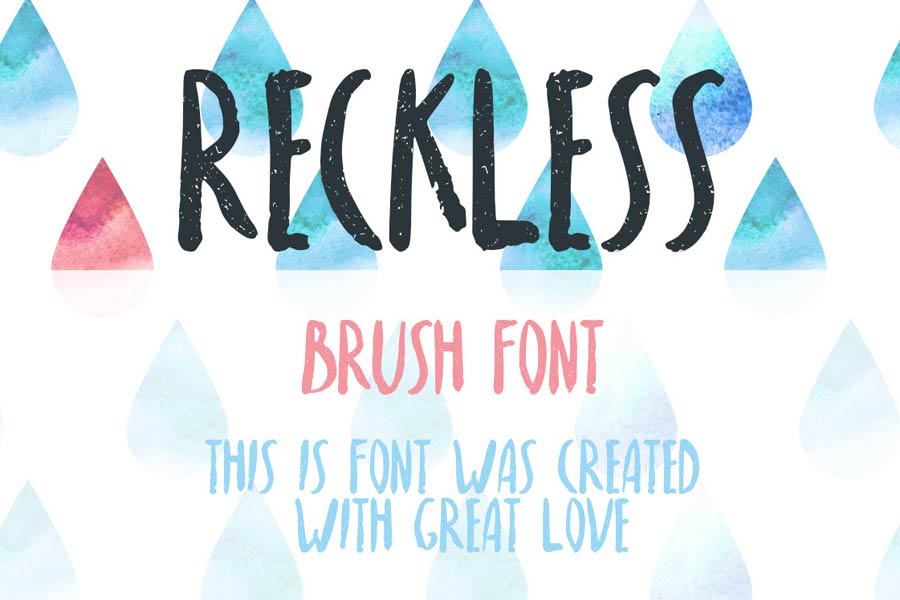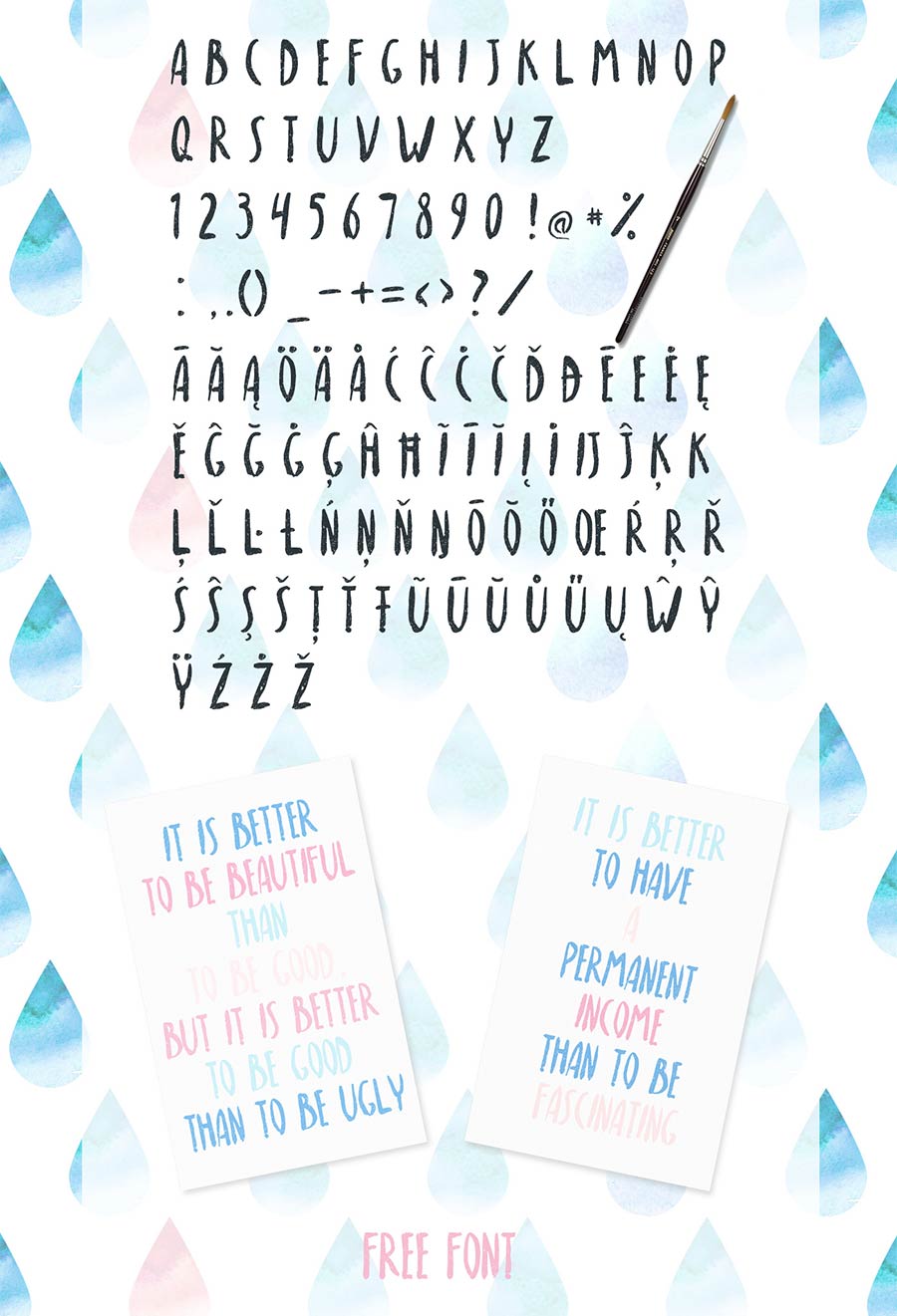
Reckless is a free handwritten font with brush. It comes with uppercases and also featuring Latin extended characters. Like many other brush fonts, Reckless works well with watercolour effect designs. You can use this font commercially for both of your print and digital designs.